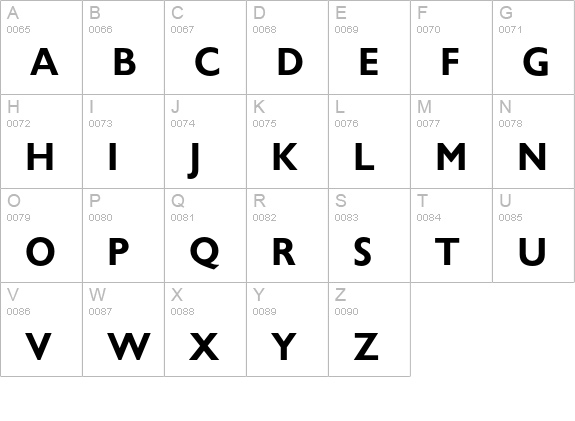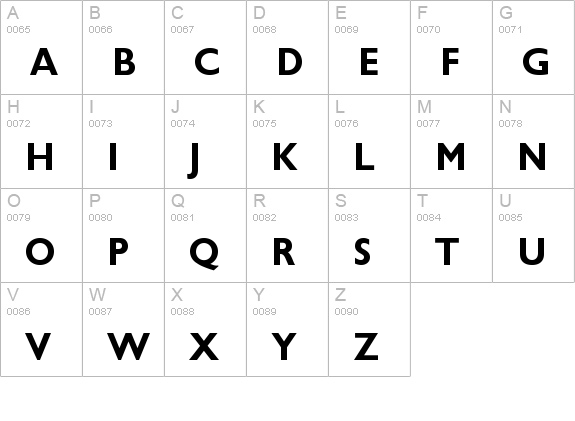
Giltus T Bold is a strong, high-contrast variant in the Giltus typeface family \xE2\x80\x94 well suited to headlines, attention-grabbing titles, and strong calls-to-action.
Giltus T Bold font is a striking and modern typeface that exudes elegance and sophistication. With its bold and dynamic design, this font is perfect for making a statement in any project or design. Whether you're creating a logo, poster, headline, or any other visual content, Giltus T Bold will surely grab attention and leave a lasting impression. The best part? Giltus T Bold font is completely free to download at FontsMarket.com. This means you can easily access this high-quality font without any cost, making it a valuable addition to your font collection. So go ahead and enhance your designs with the bold and stylish Giltus T Bold font today!